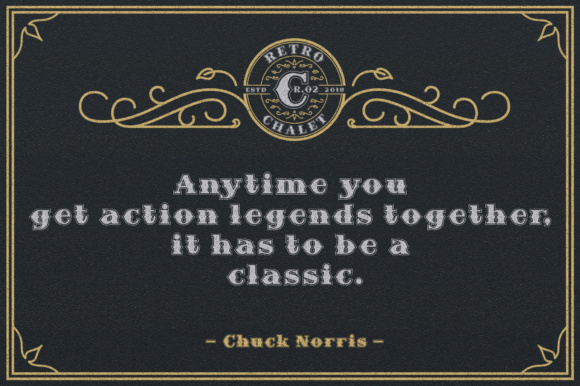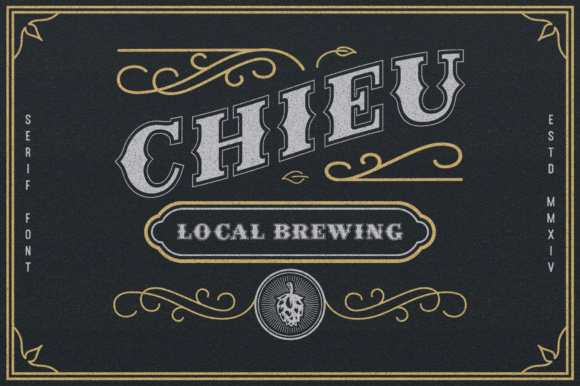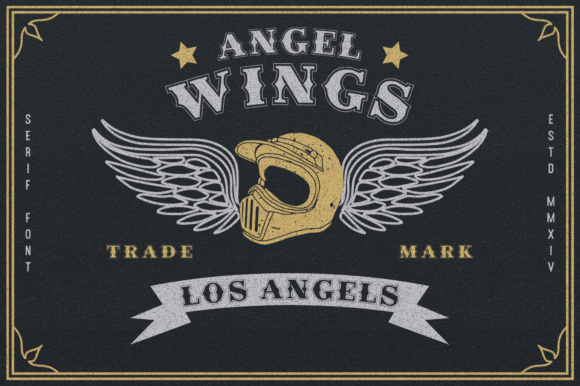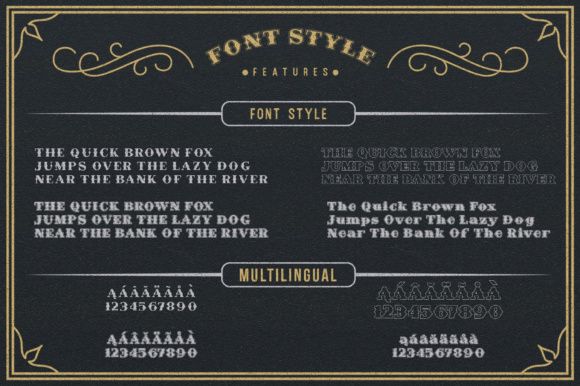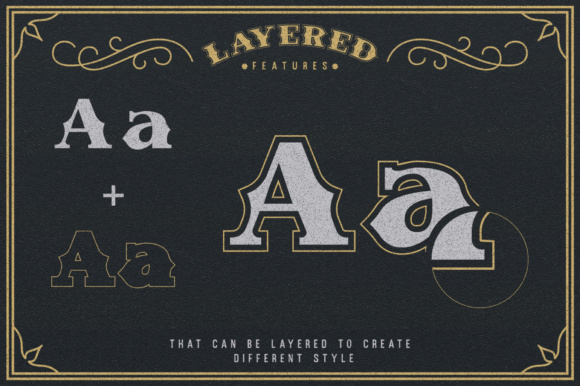
Introduction to Retro Chalet Font Font
Fonts play a crucial role in design, and the Retro Chalet Font font is a typeface that brings both character and versatility to any project. Whether you’re working on a branding project, a website, or a print design, the Retro Chalet Font font offers a unique style that can elevate your work.
Retro Chalet is a vintage font with an outline version included.
Perfect to use for logotypes, letterheads, posters, apparel designs, labels, branding, old quotes and much more .
Key Features of Retro Chalet Font Font
Why Choose Retro Chalet Font Font?
The Retro Chalet Font font is more than just a typeface – it’s a design tool that helps you communicate your message with style and clarity. Its unique character set and versatile design make it suitable for a wide range of applications, from elegant invitations to bold headlines.
With its carefully crafted letterforms and balanced proportions, the Retro Chalet Font font ensures readability and visual appeal across all mediums.
What makes Retro Chalet Font font special?
The Retro Chalet Font font stands out with its unique design, exceptional readability, and versatility across various design applications.